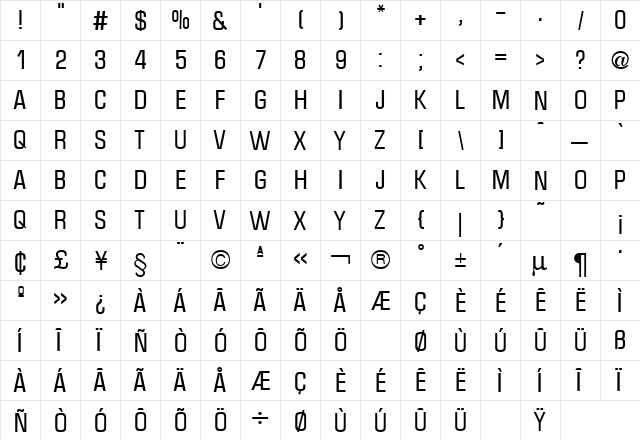
Micro Technic Condensed Regular
Design Context for Micro Technic Condensed Typeface
Micro Technic Condensed channels digital-age aesthetics through its sharp, structured letterforms — ideal for brands that want to signal innovation. The condensed width makes it efficient for tight spaces without sacrificing legibility.
Pro Tip: Use Micro Technic Condensed in combination with a neutral sans for body text. Let it define the brand voice in headlines while keeping reading comfortable elsewhere.